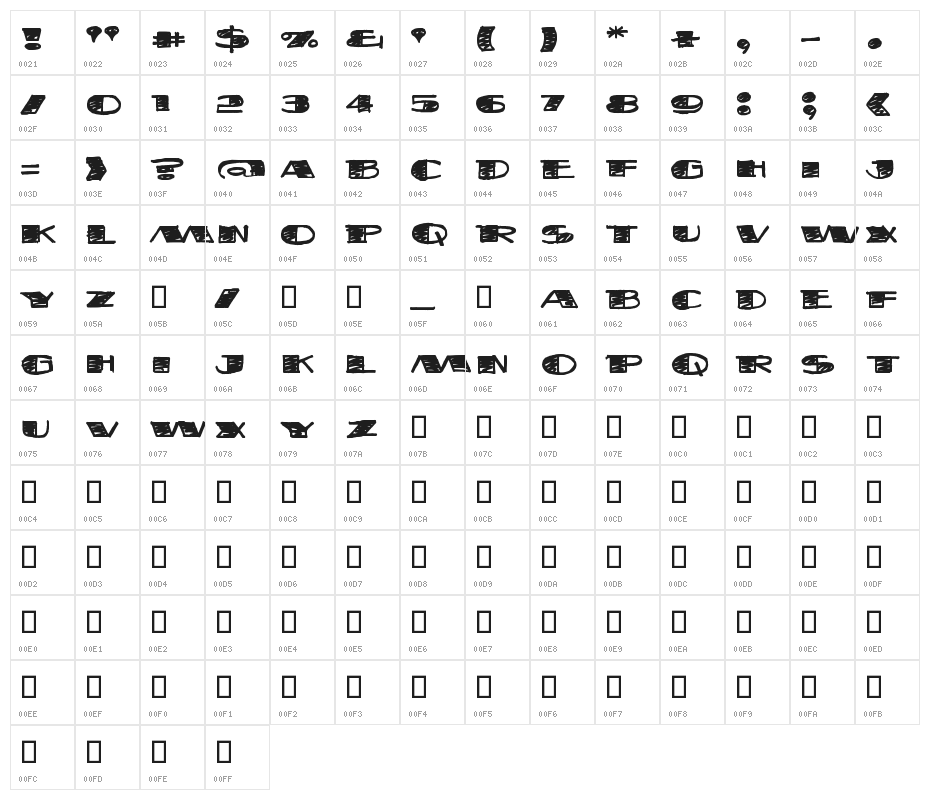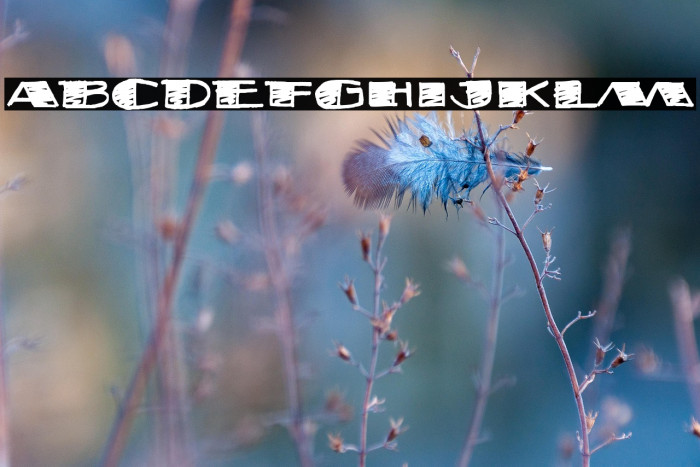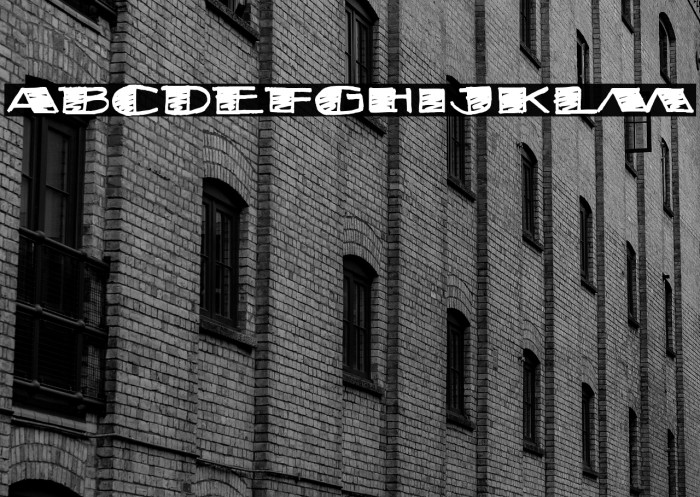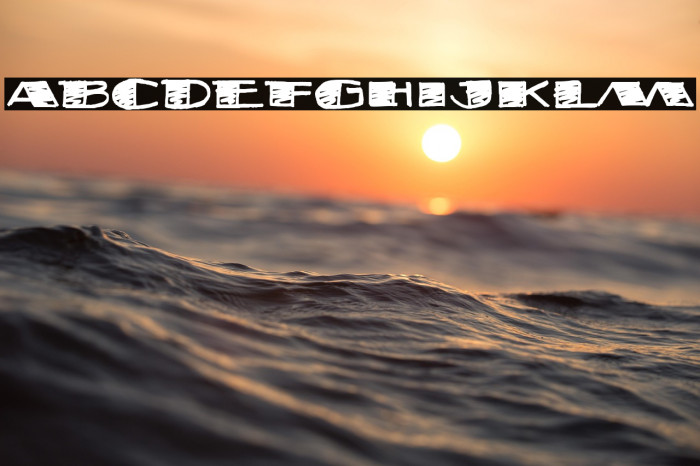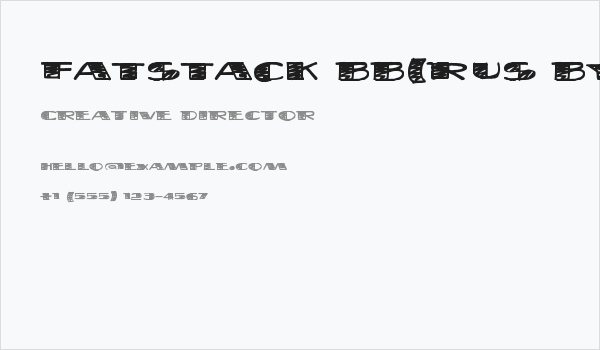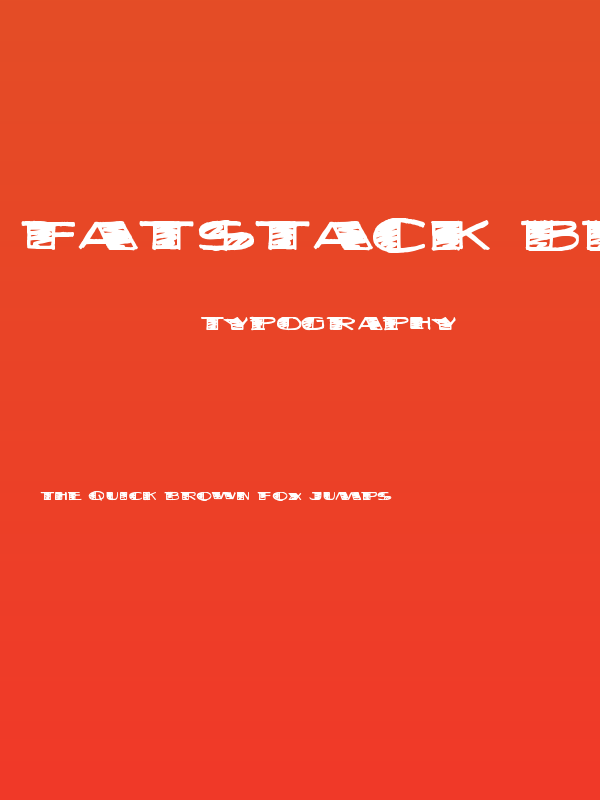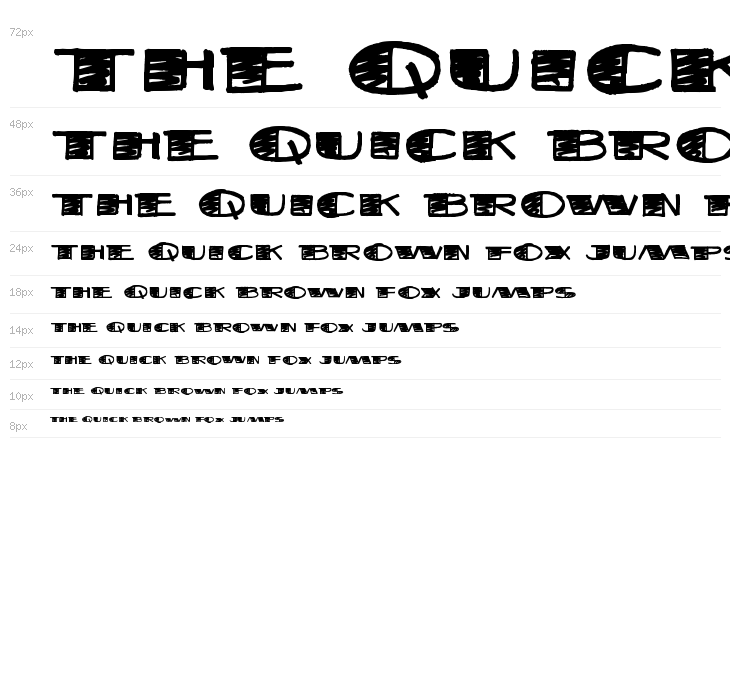
FatStack BB(RUS BY LYAJKA) Font
FatStack BB(RUS BY LYAJKA) Description
This font features a bold and playful design with a distinct hand-drawn appearance. Each character is filled with a textured pattern that resembles scribbles or doodles, giving it a unique and artistic flair. The letters are wide and have a slightly irregular form, contributing to its casual and informal style. The font maintains a consistent thickness throughout, with minimal contrast between strokes. It includes a full set of uppercase and lowercase letters, numbers, and a variety of special characters, making it versatile for creative projects.
| Overall Style | Playful, Artistic |
| Proposed Projects | Ideal for children's book covers, playful posters, creative branding, and casual invitations. |